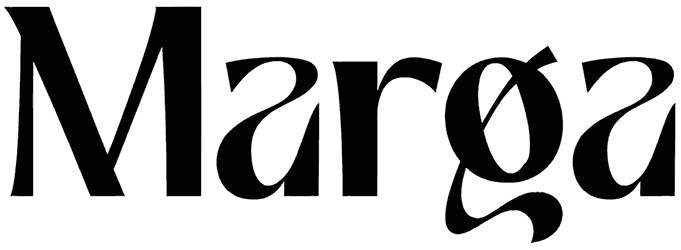
Marga Font
Obviously, it doesn’t surprise how many various designs you can decorate with a classic and unique font such as Marga. This serif font with all A-Z characters could be a chic face for any design, branding, social media posts, presentations, etc. This versatile font will make an original and self-confident mood for your words.